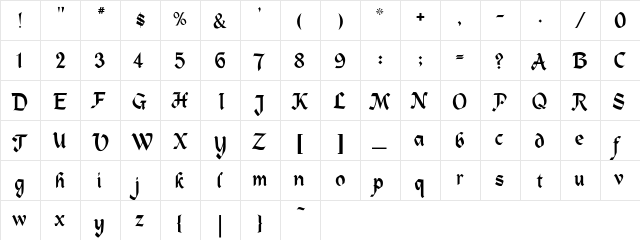
Seidlebang Regular
Design Context for Seidlebang Typeface
Seidlebang is a composed and adaptable typeface that performs quietly and consistently across a wide range of design contexts.